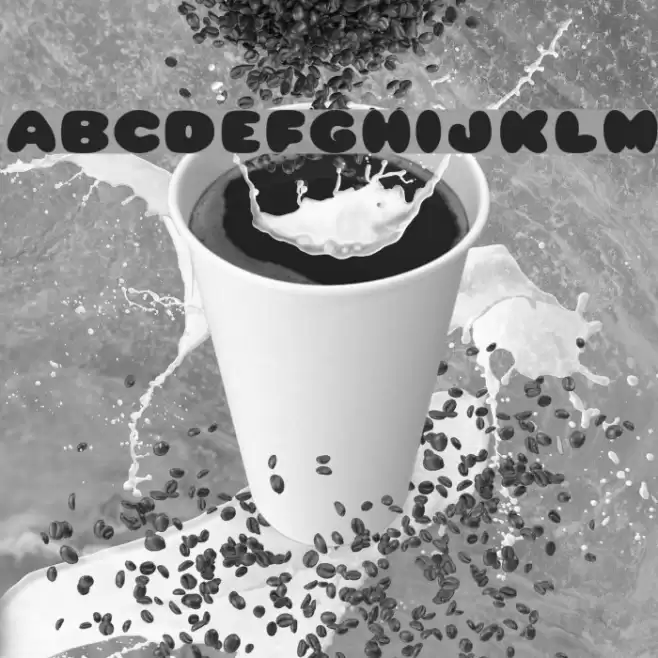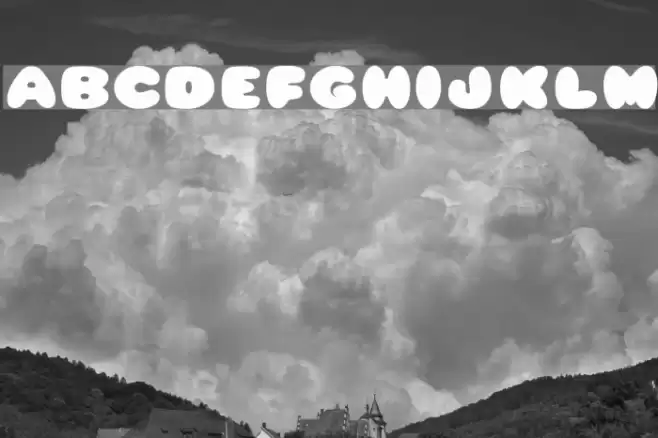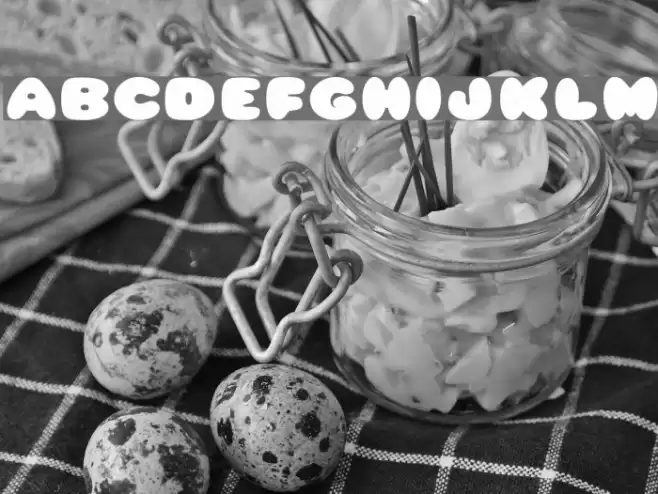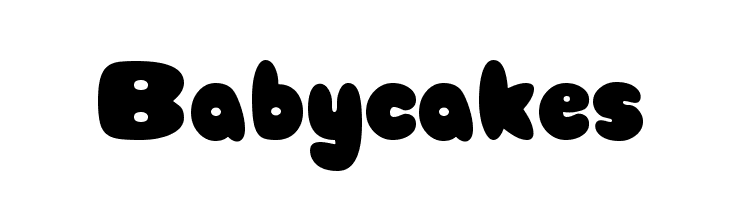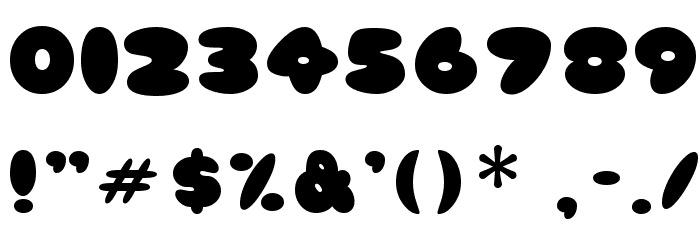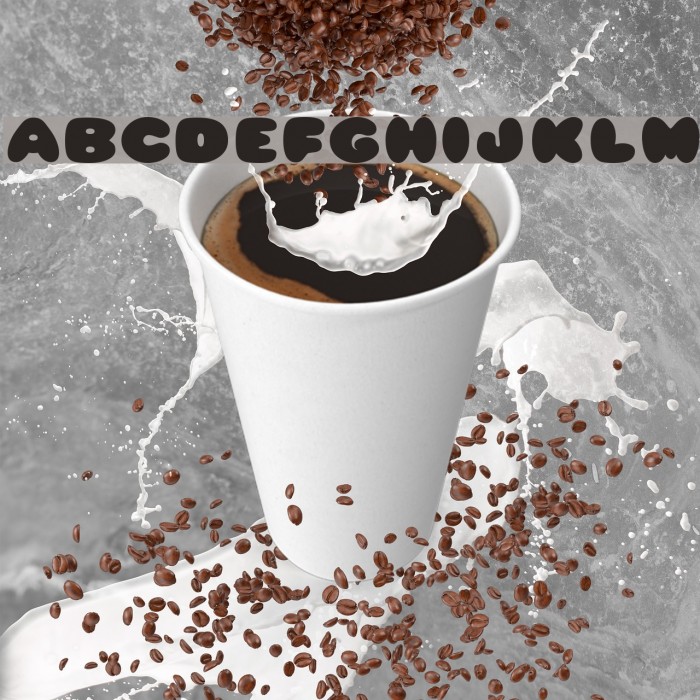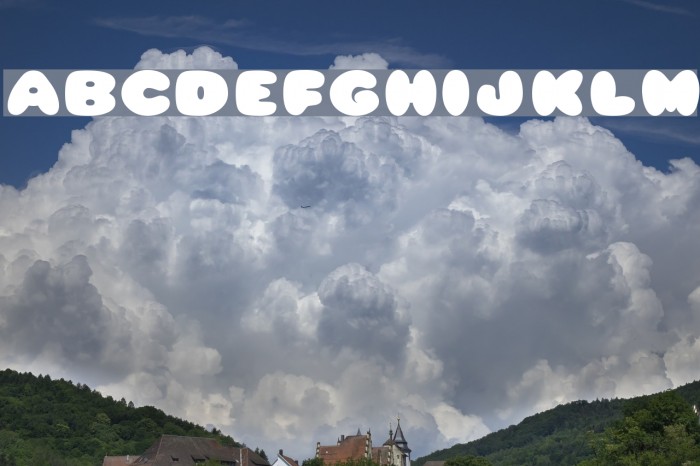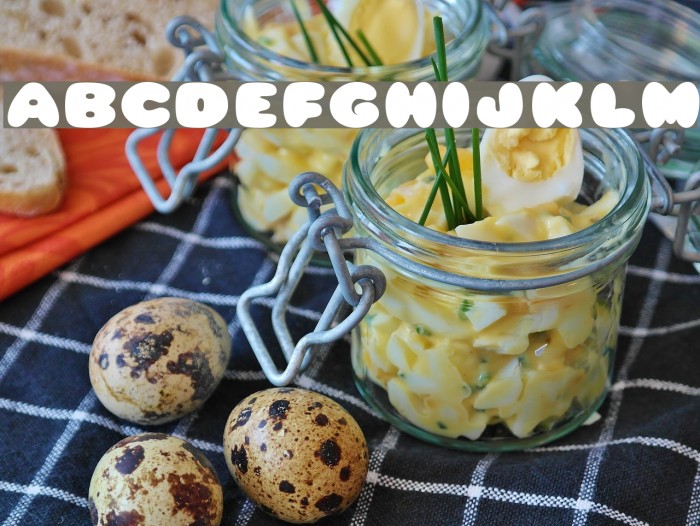
Babycakes Font
Babycakes Description
This playful and bold font features rounded, bubbly characters that exude a sense of fun and whimsy. The letters are thick and have a uniform stroke width, creating a cohesive and friendly appearance. The font's design is reminiscent of playful childhood themes, making it ideal for projects that aim to convey a sense of joy and creativity. The characters are well-spaced, ensuring readability while maintaining a lively aesthetic. The font includes a full set of uppercase and lowercase letters, numbers, and a variety of special characters, making it versatile for different design needs.
A playful, bold font with rounded, bubbly characters perfect for fun and creative projects from Handwritten fonts.
- Proposed Projects: Ideal for children's books, playful branding, party invitations, and creative posters.
- Overall Style: Playful, Fun